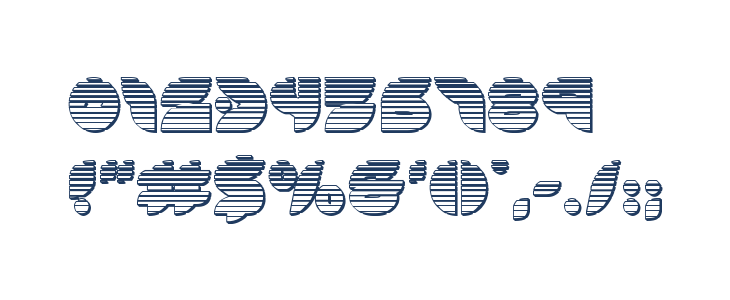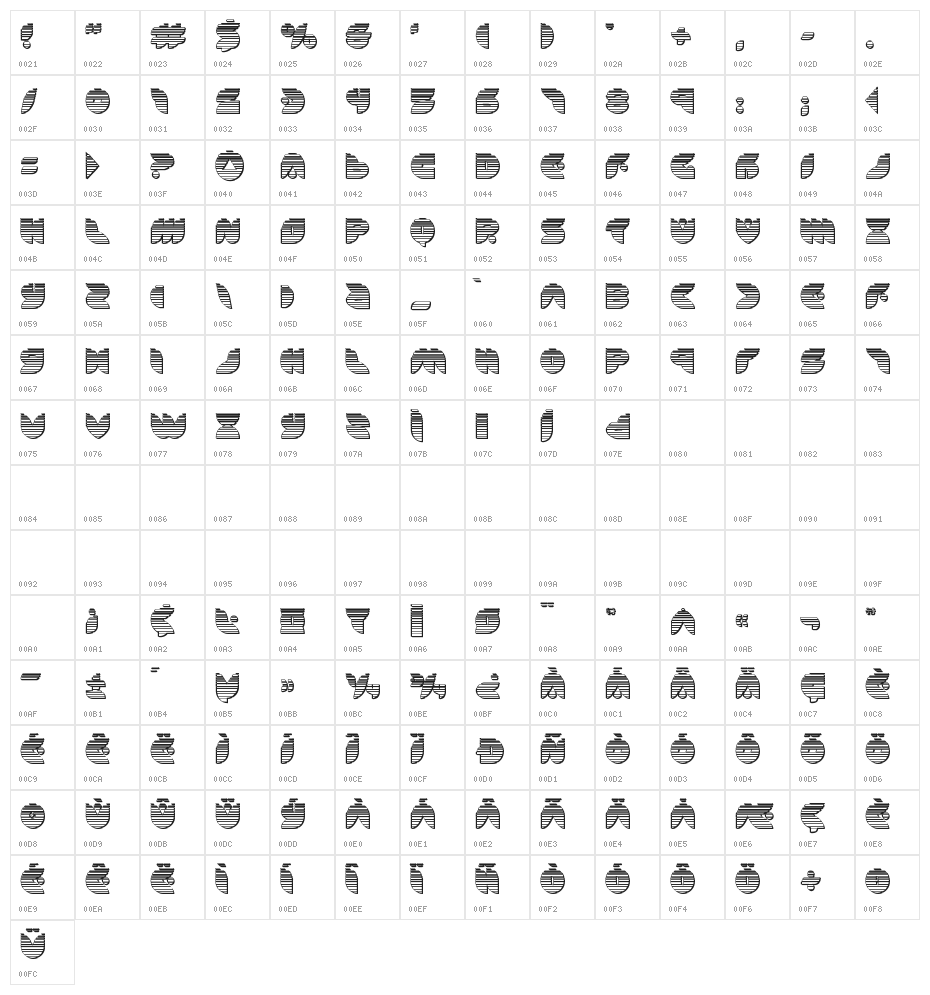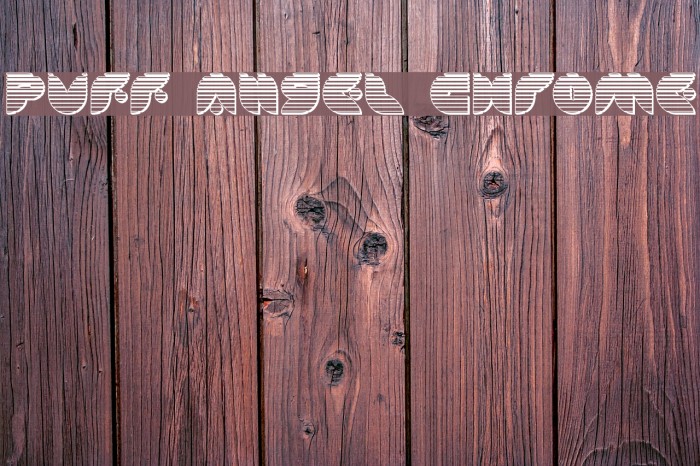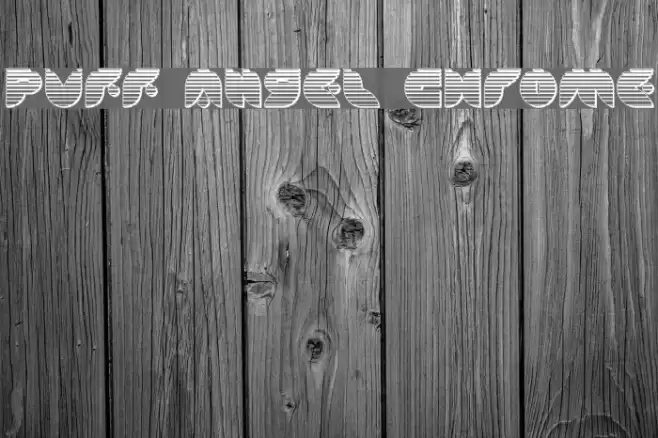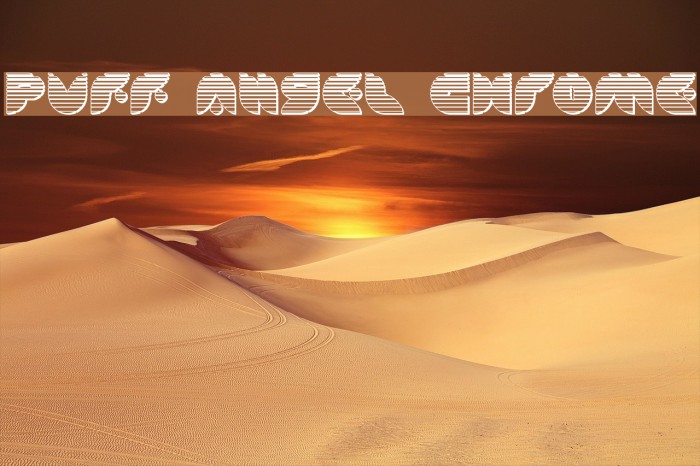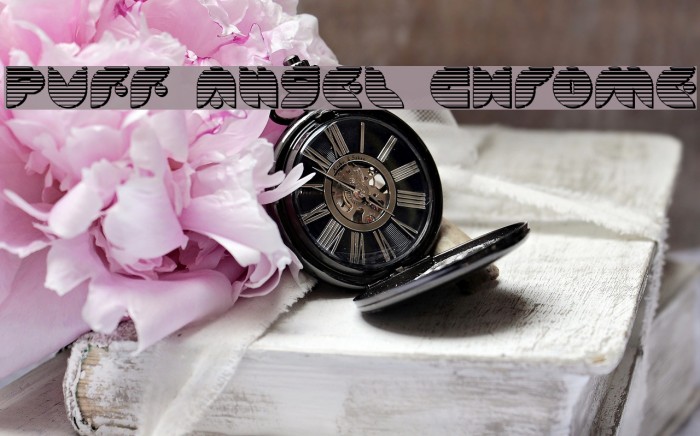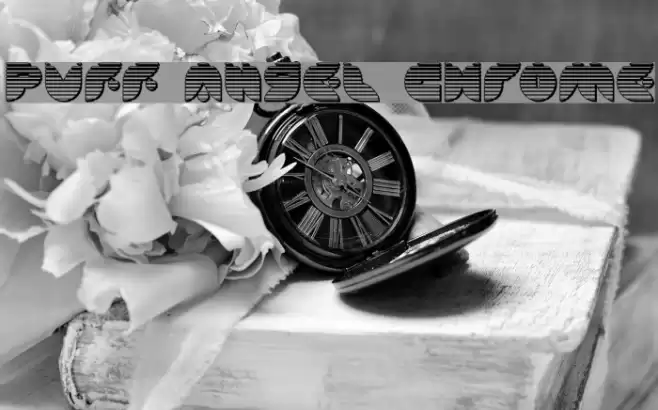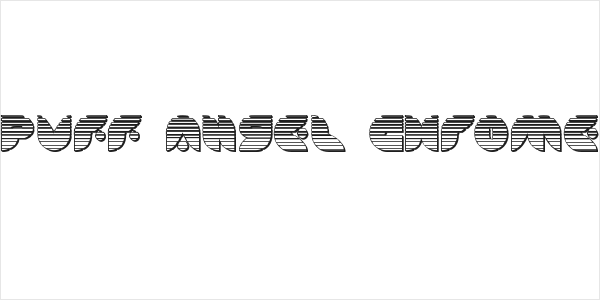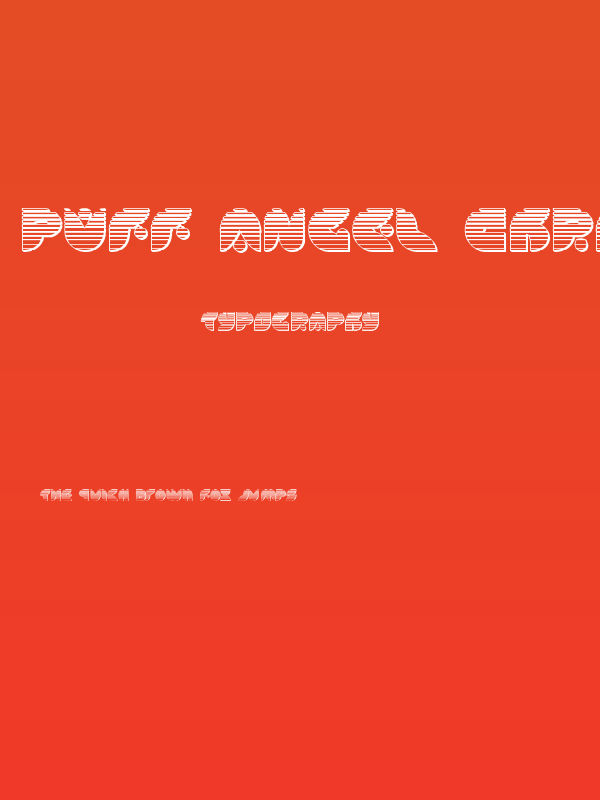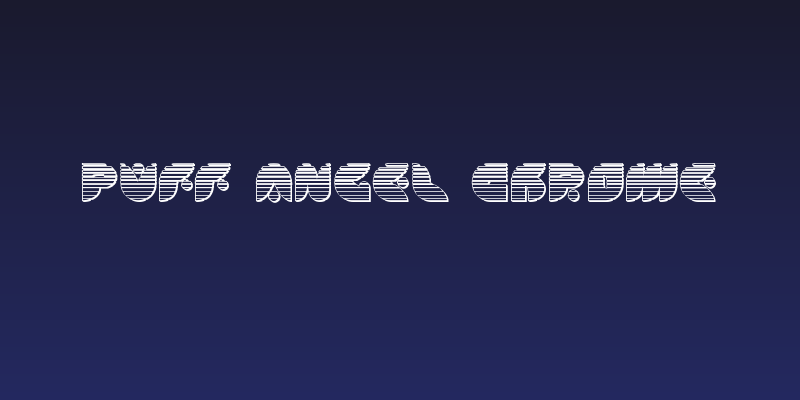
Puff Angel Chrome Font
Puff Angel Chrome Description
This font features a bold, futuristic design with a unique striped pattern running horizontally through each character. The letters are wide and rounded, giving them a playful yet modern appearance. The uppercase and lowercase letters maintain a consistent style, with the stripes adding a sense of movement and depth. The numbers and special characters are equally stylized, ensuring a cohesive look across all elements. This font stands out with its decorative flair, making it ideal for eye-catching designs.